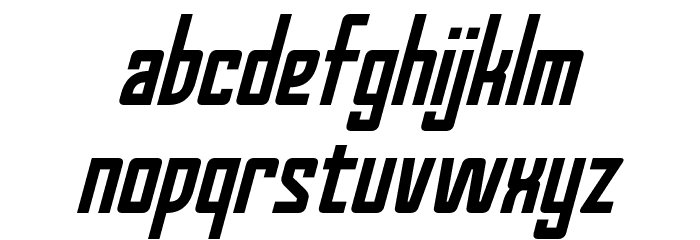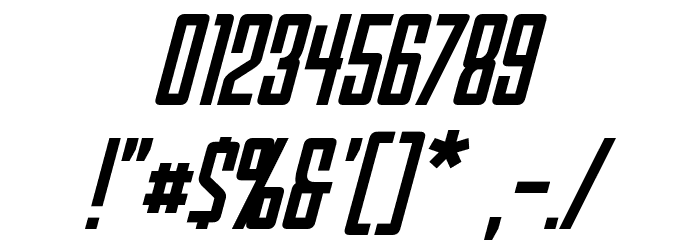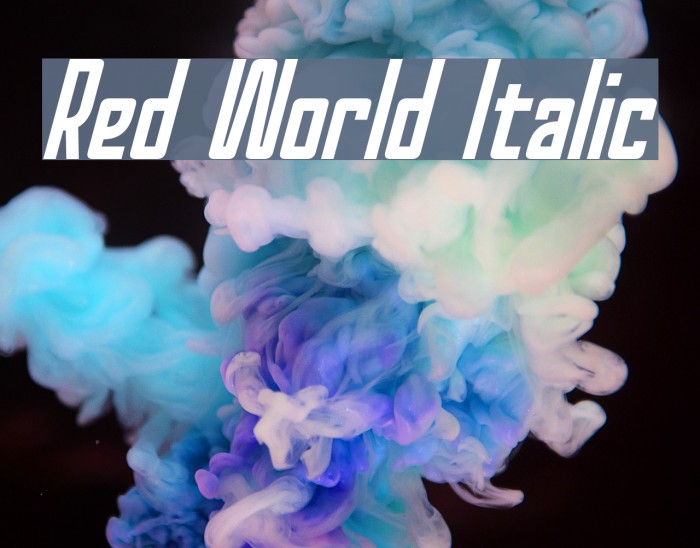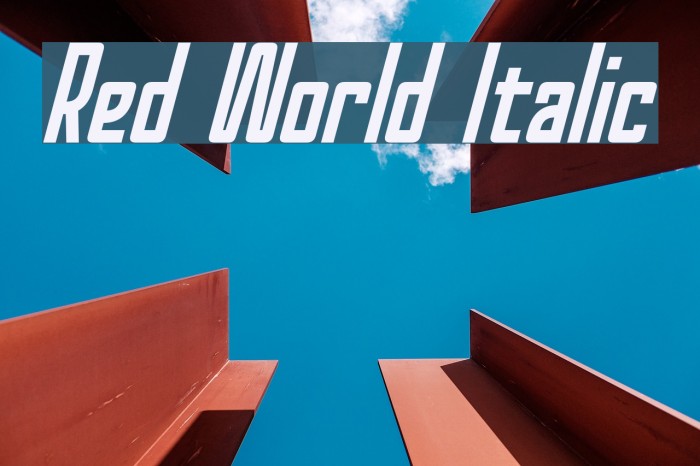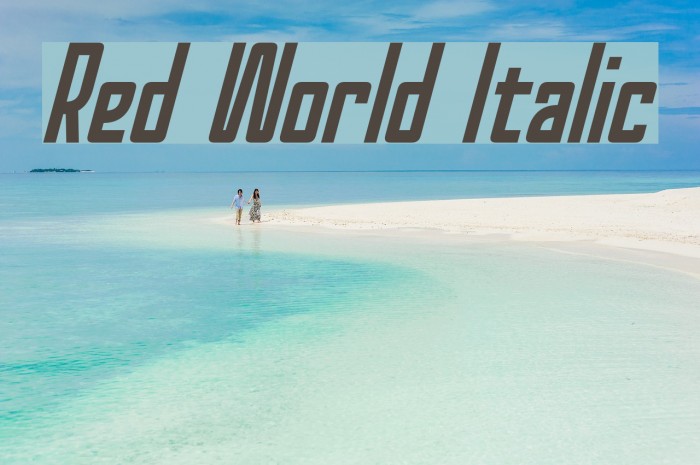
Red World Italic Font
This font features a dynamic and modern italic style with a strong slant, giving it a sense of motion and speed. The characters are bold and condensed, with sharp angles and clean lines that create a sleek and futuristic appearance. The uppercase and lowercase letters maintain a consistent style, while the numerals and special characters complement the overall design. The font's structure is well-suited for projects that require a contemporary and energetic look.
A bold, italic, and condensed font with a modern and dynamic style.
- Category: Sans-Serif
- Width: Condensed
- Character Spacing: Tight